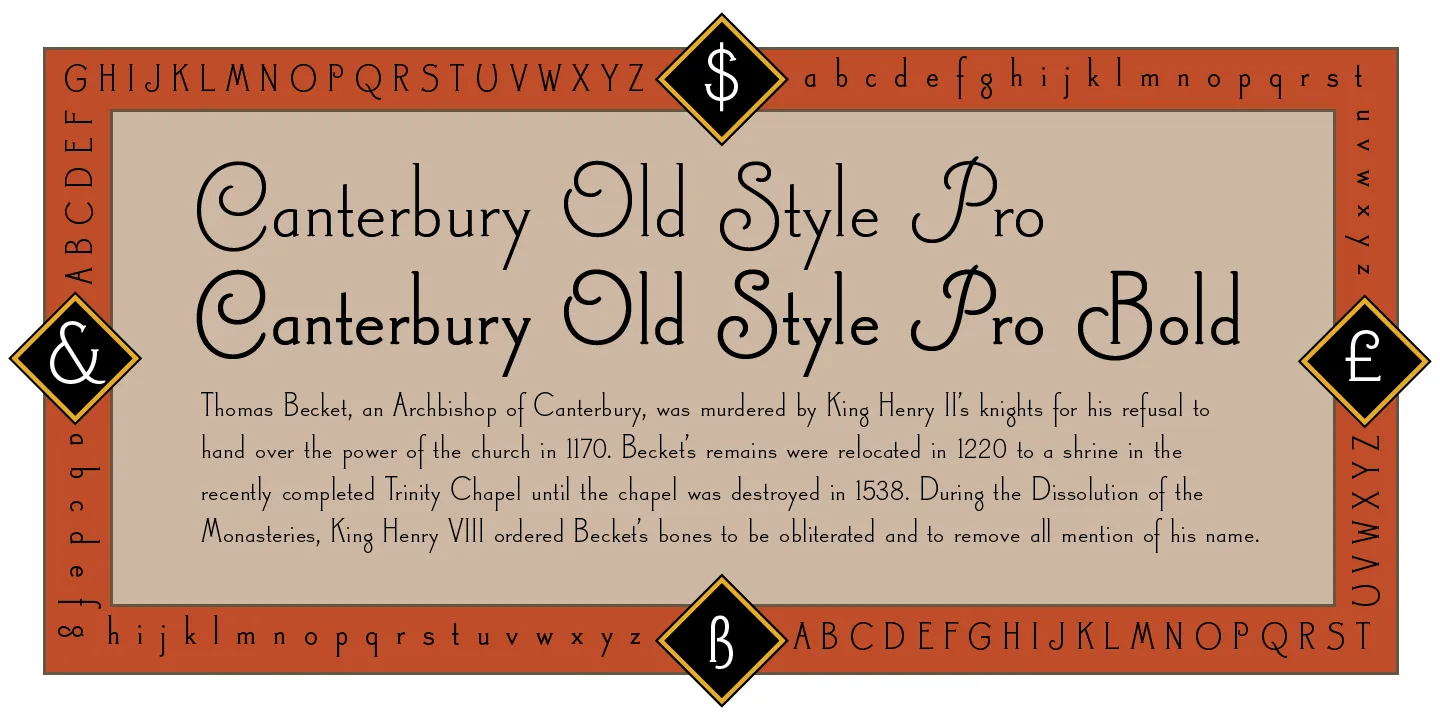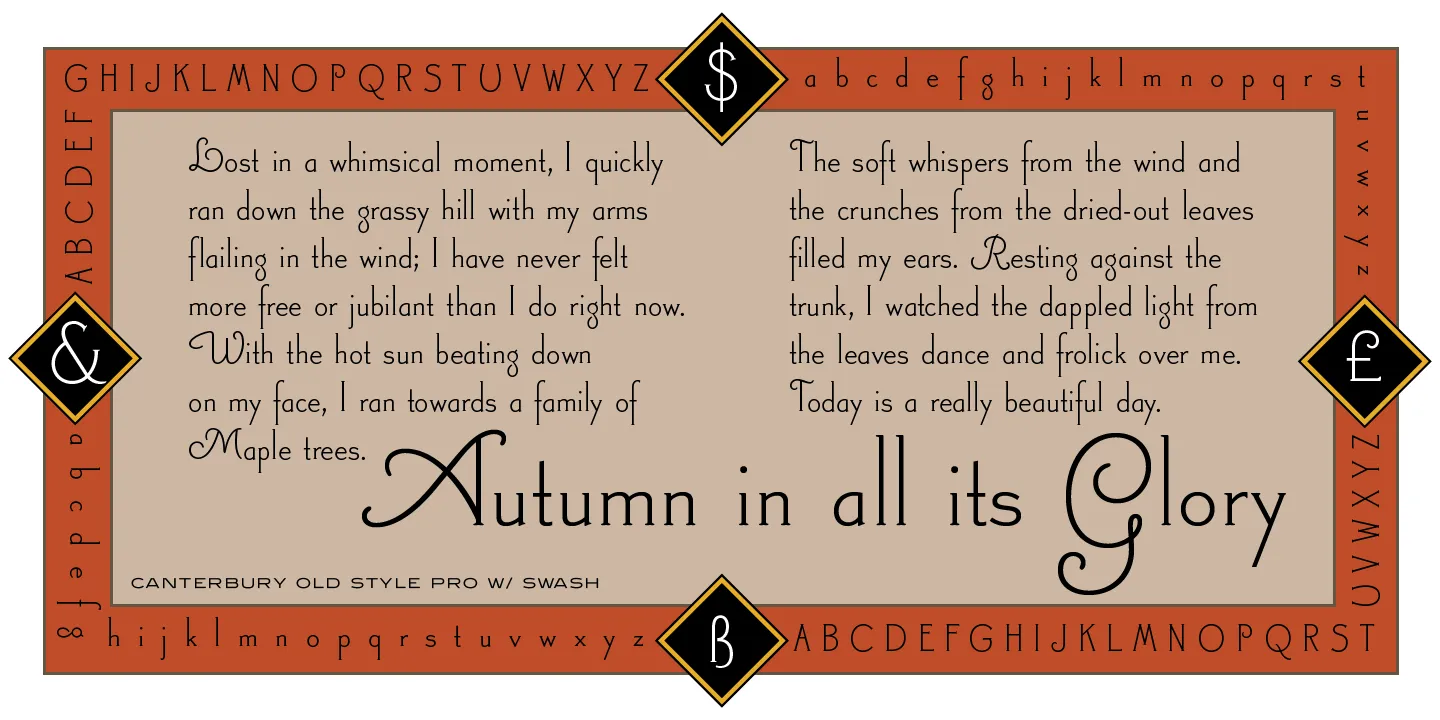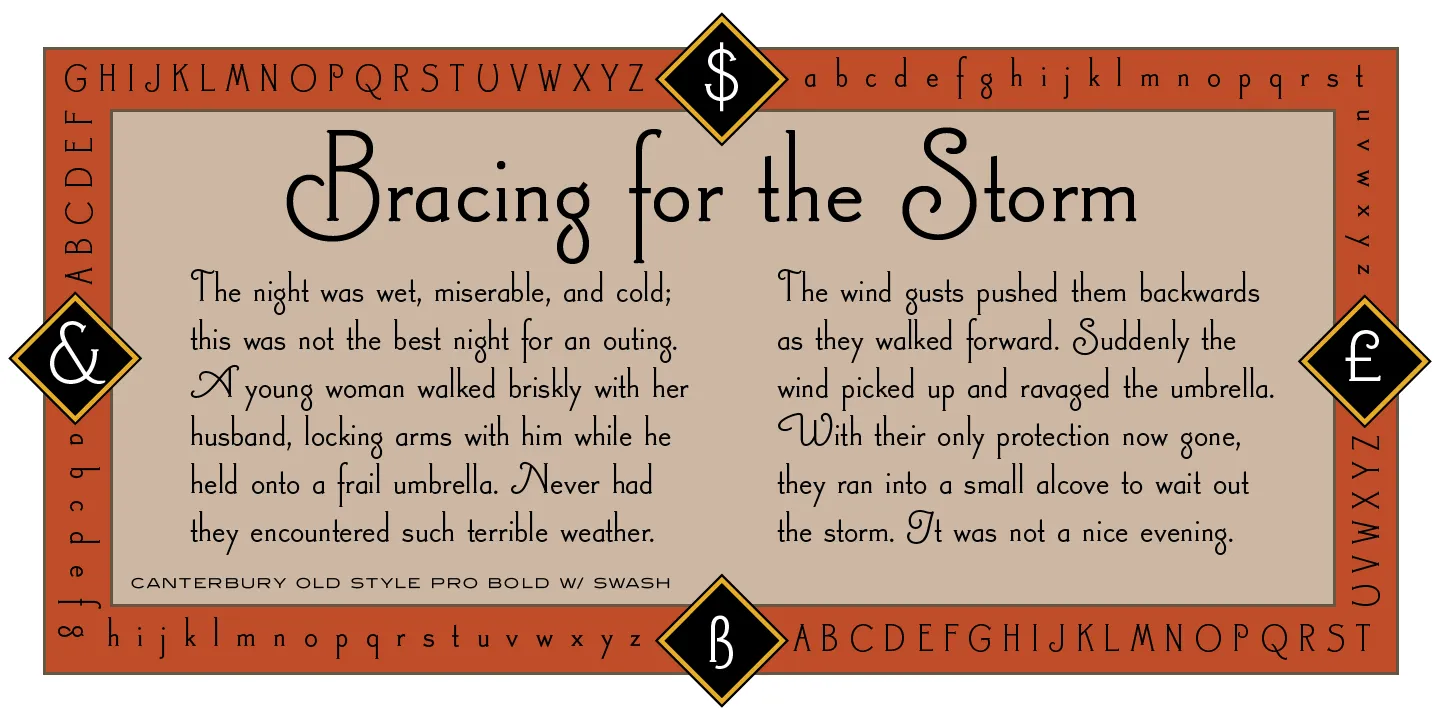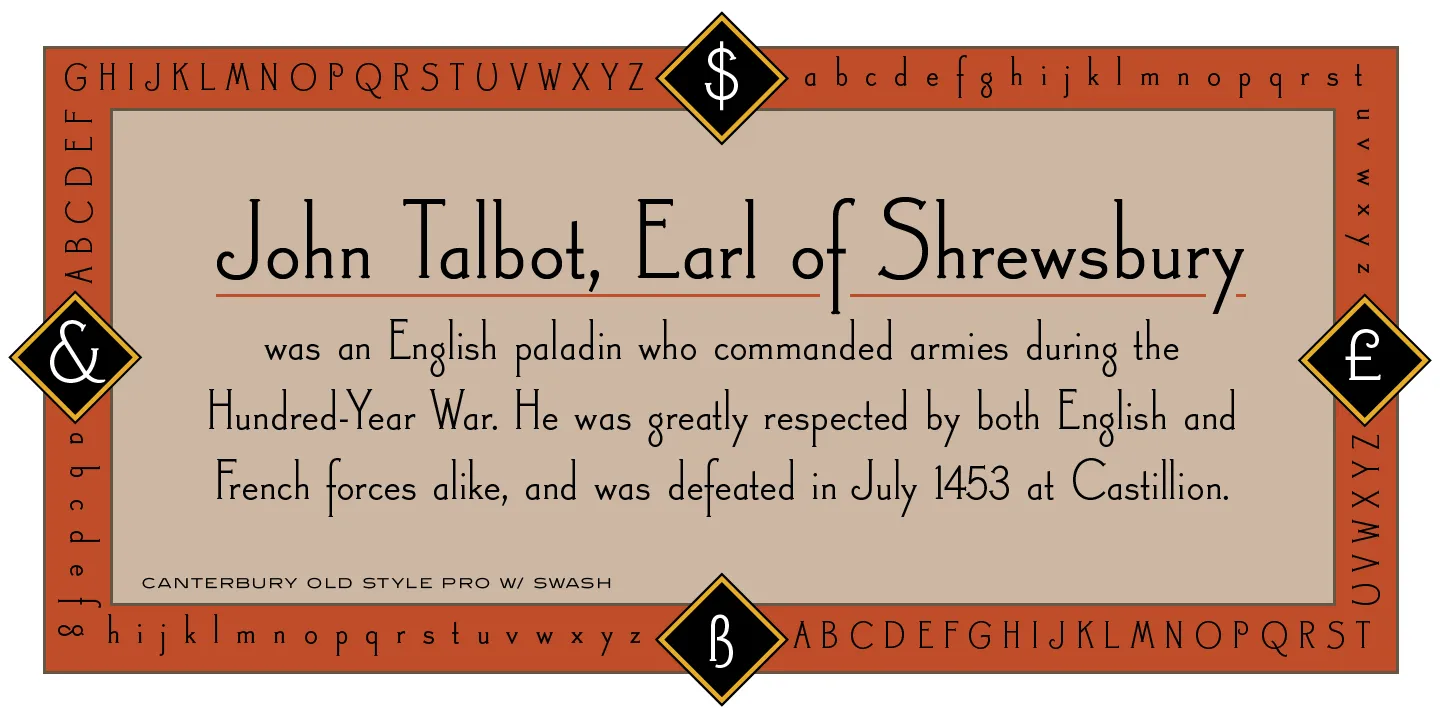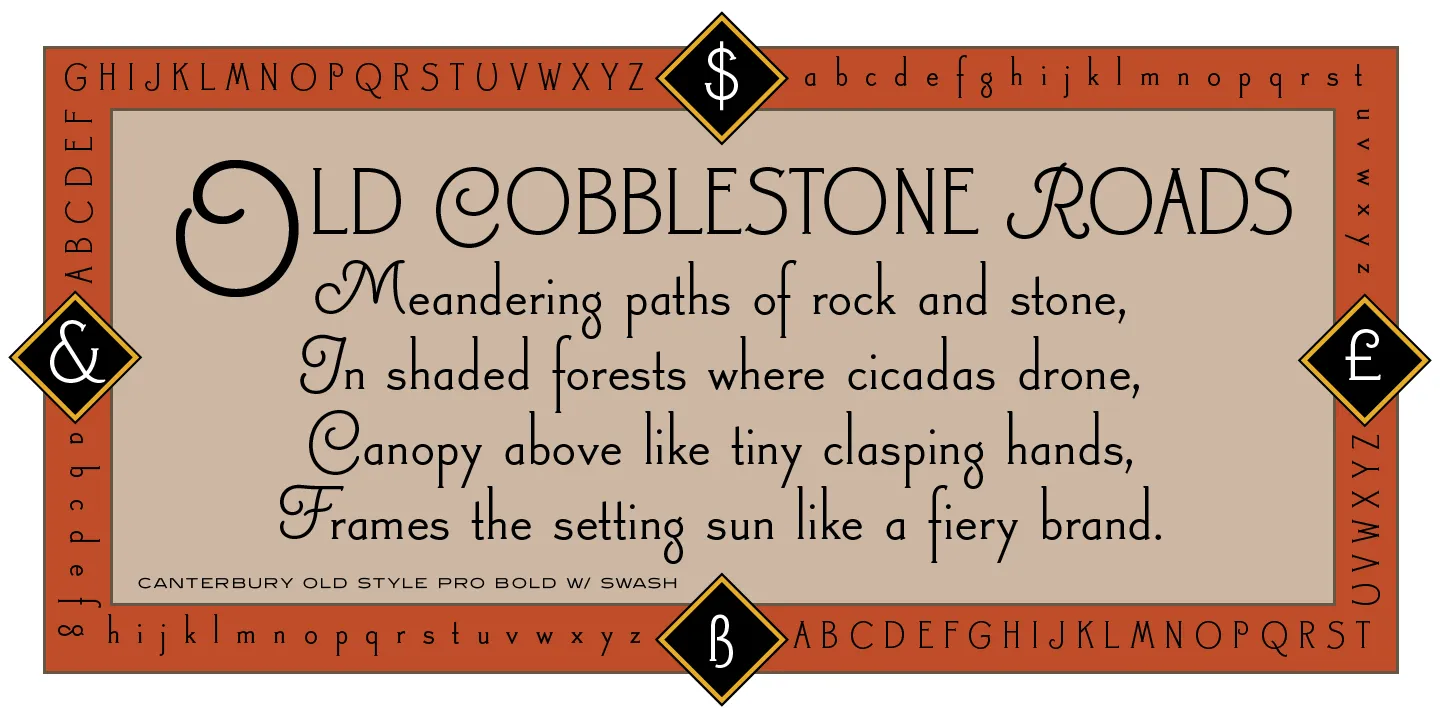
Canterbury Old Style Font Family
Canterbury Old Style is a two-weight serif font family with a small x-height. In 1920, Morris F. Benton designed the original weight for American Type Founders (ATF). Raymond Vatter and Steve Jackaman (ITF) produced the digital version in 1992 and added a new “Bold” weight, and a full set of swash capitals were designed and released in 2003. Jackaman redrew and refined the family in 2017. Canterbury Old Style has an extended character sets that support Western, Central, and Eastern European languages. Canterbury Old Style has a whimsical, old-time feel, and handsomely distinguishes itself at all sizes. Canterbury Sans, its sans serif sister font, complements the family with its flowing forms.
• Czech
• Latvian
• Polish
• Slovak
OpenType Features
• Common Ligatures
• Fractions
• Ordinal Numerals
• Subscript
• Superscript
• Swashes
Styles included • Regular • Bold